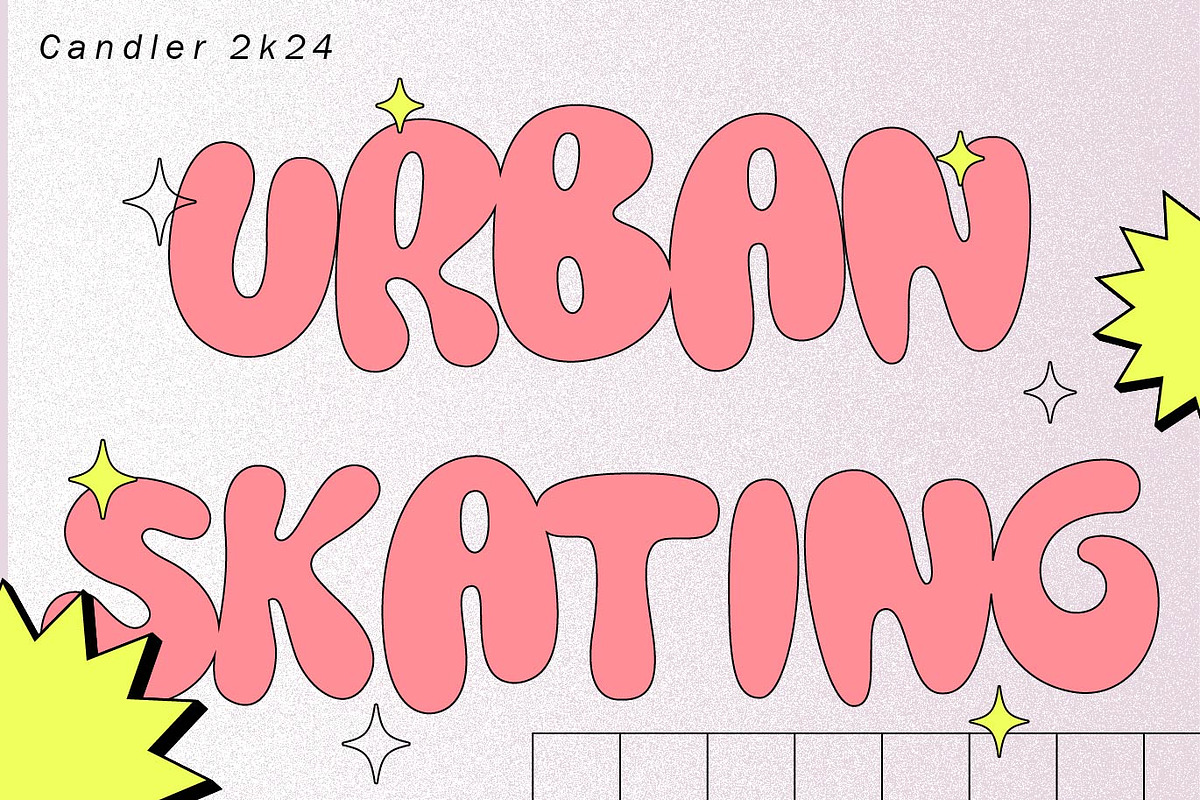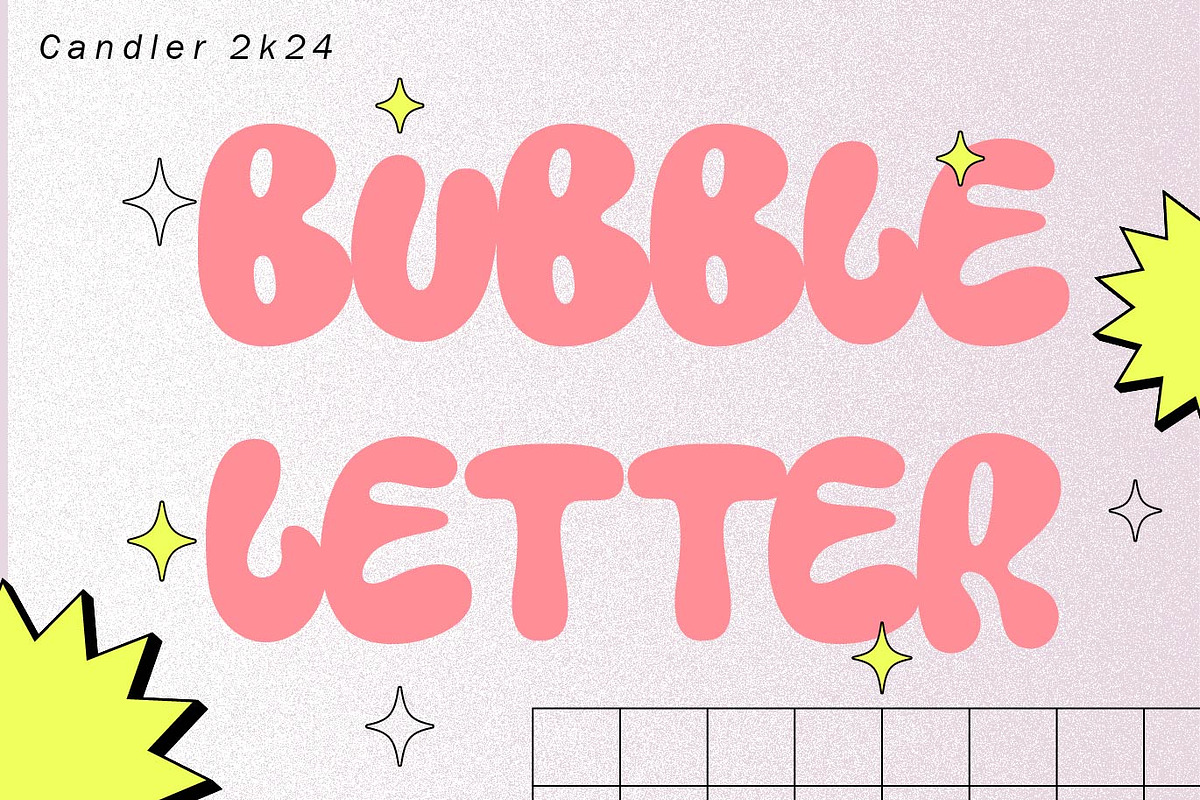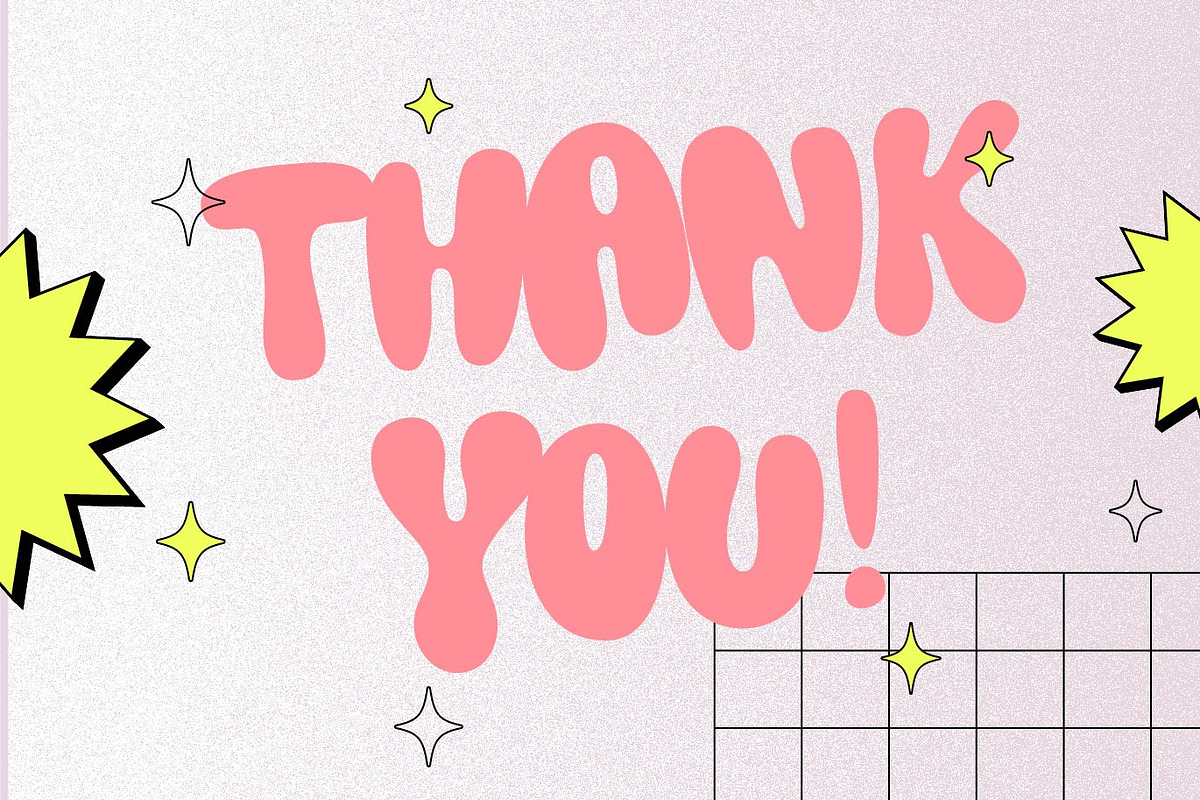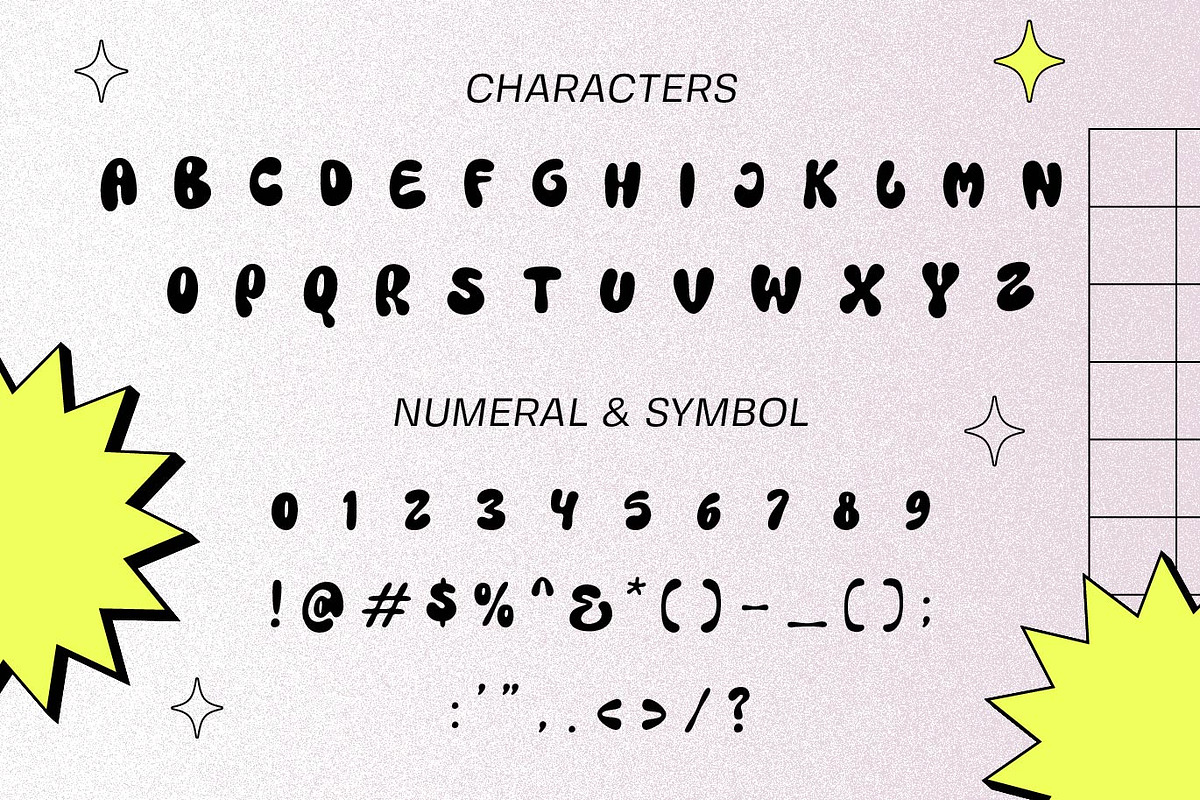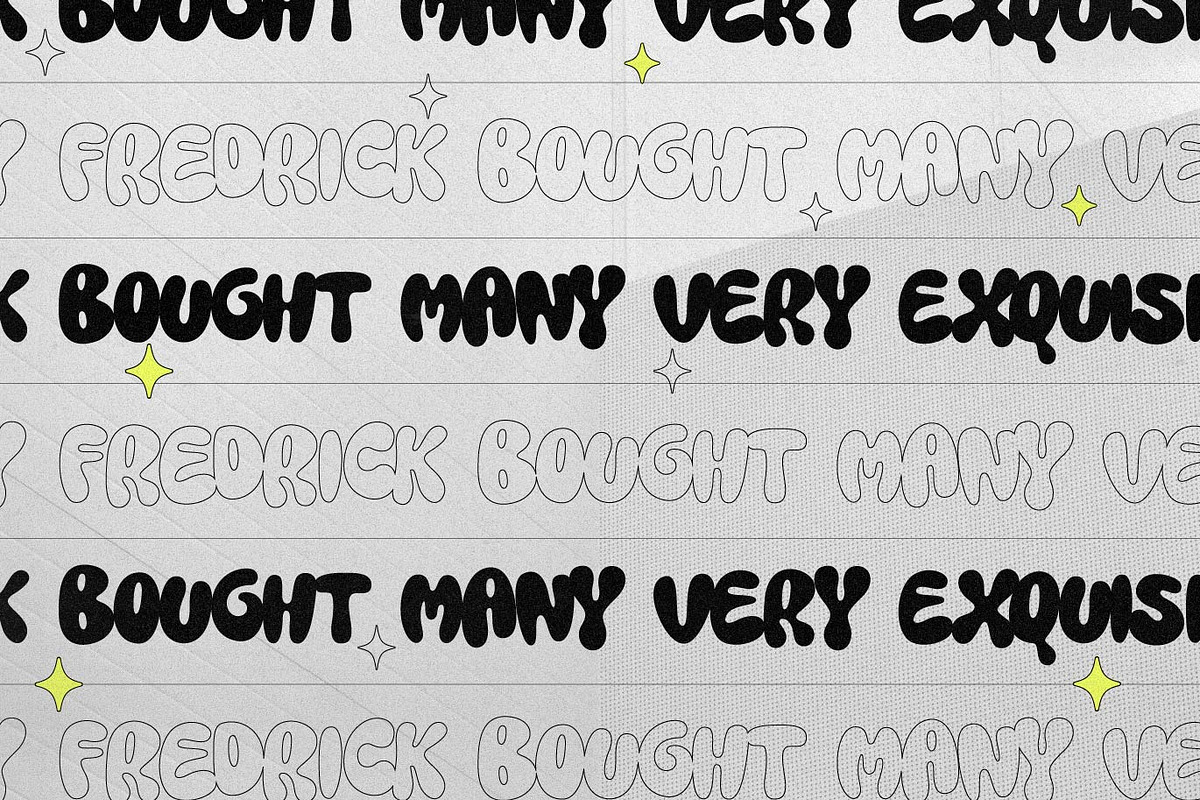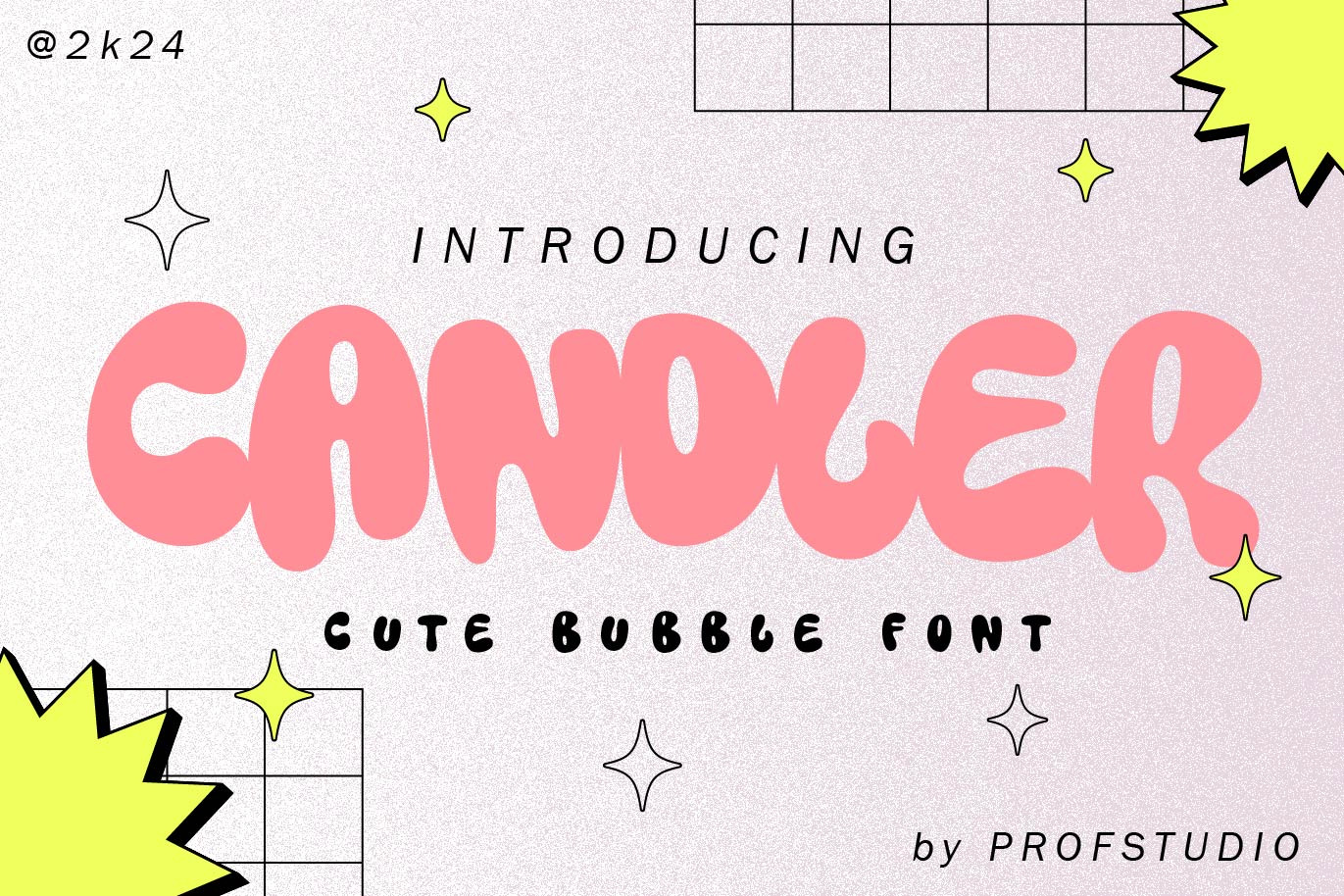
Candler - Cute Bubble Font
Candler - Bold Bubble Font which can be interpreted professional. we keep this font looks Playful, bubbly, readable, stylish, catchy and easy to use.
Candler - is the great choice for event design ,magazine, children book, playful poster, and many other design project. Booba Candy here to make your work to high level!!!